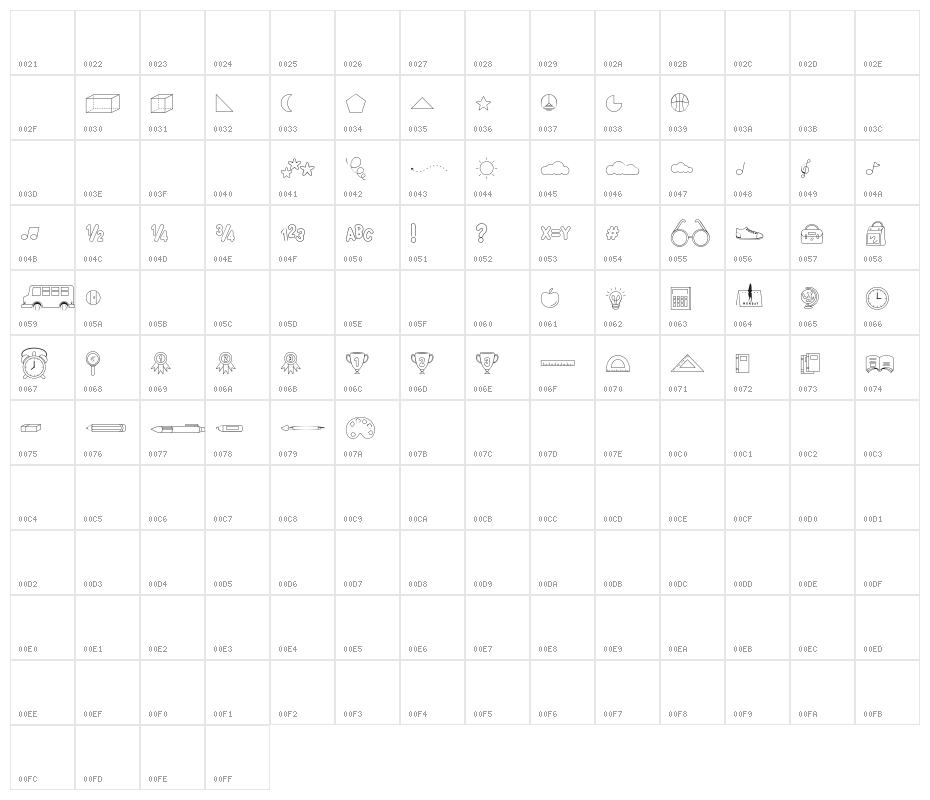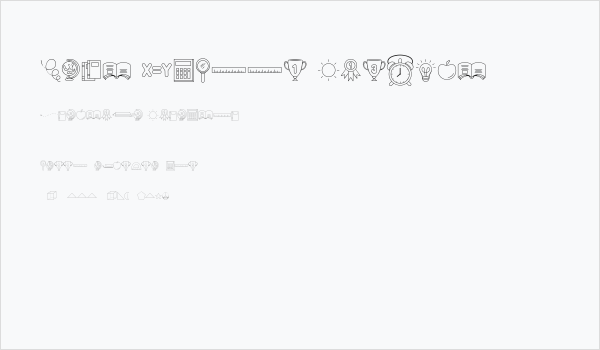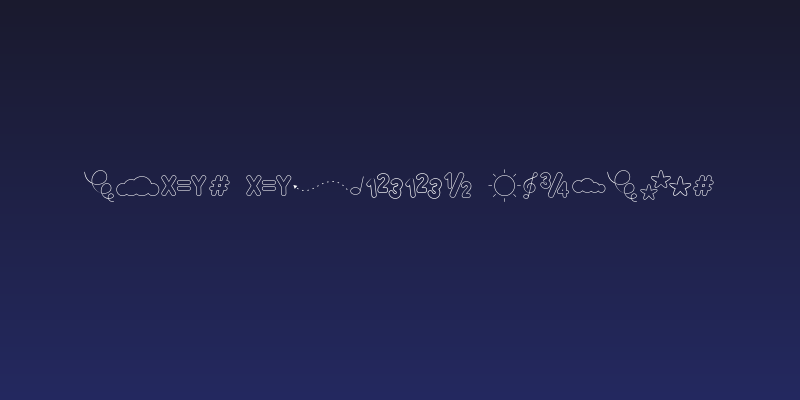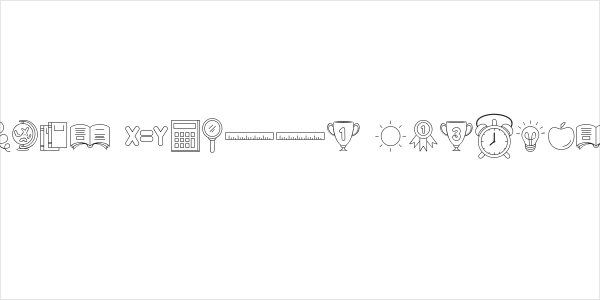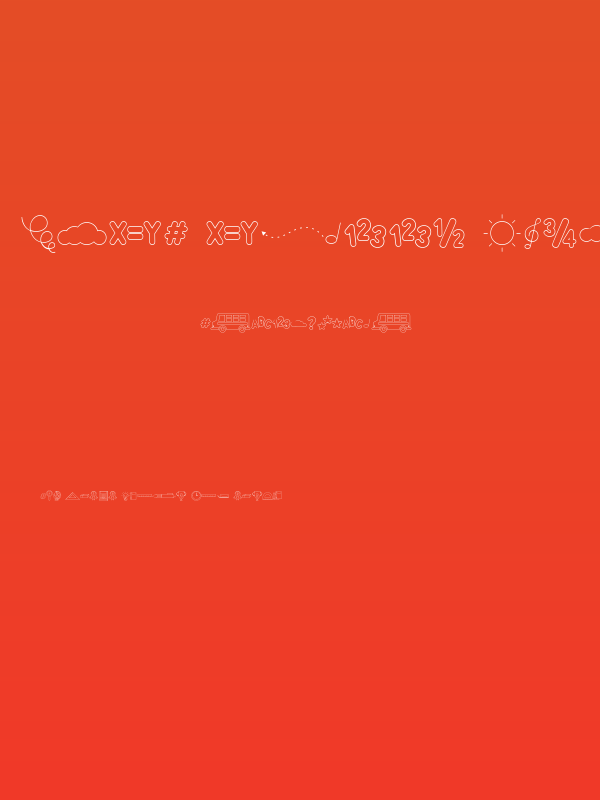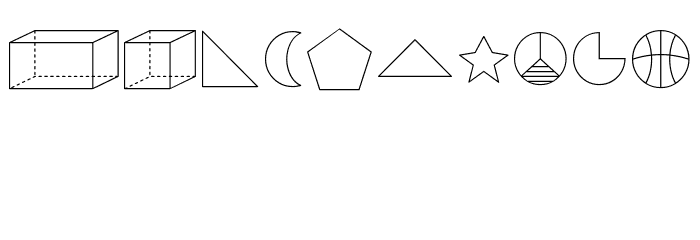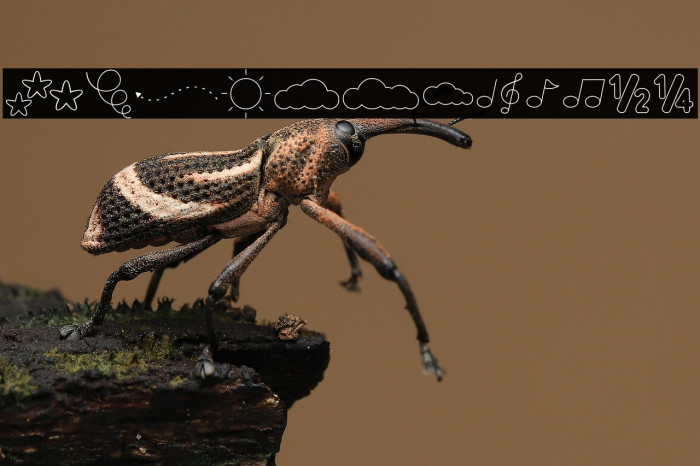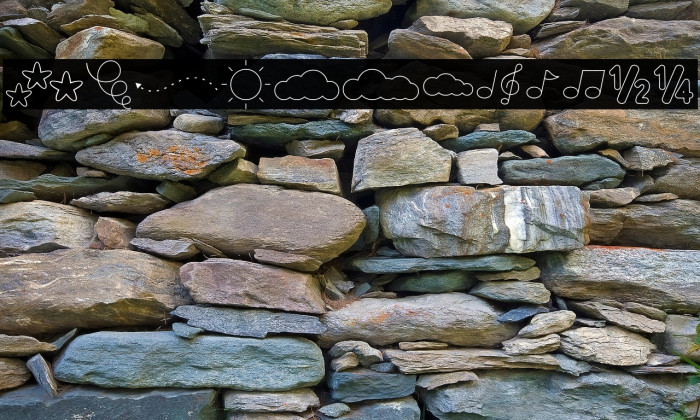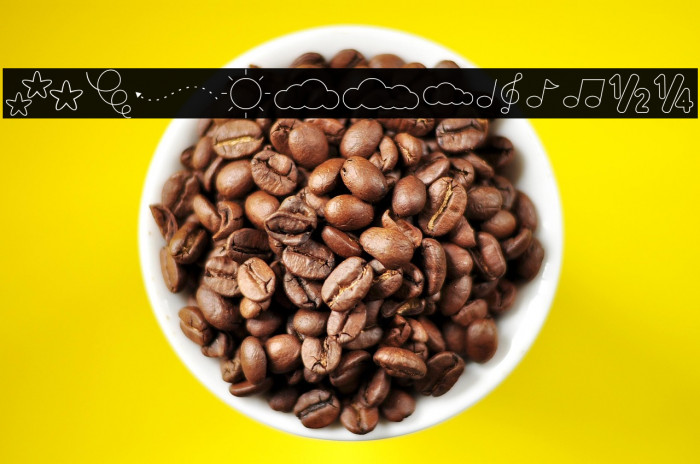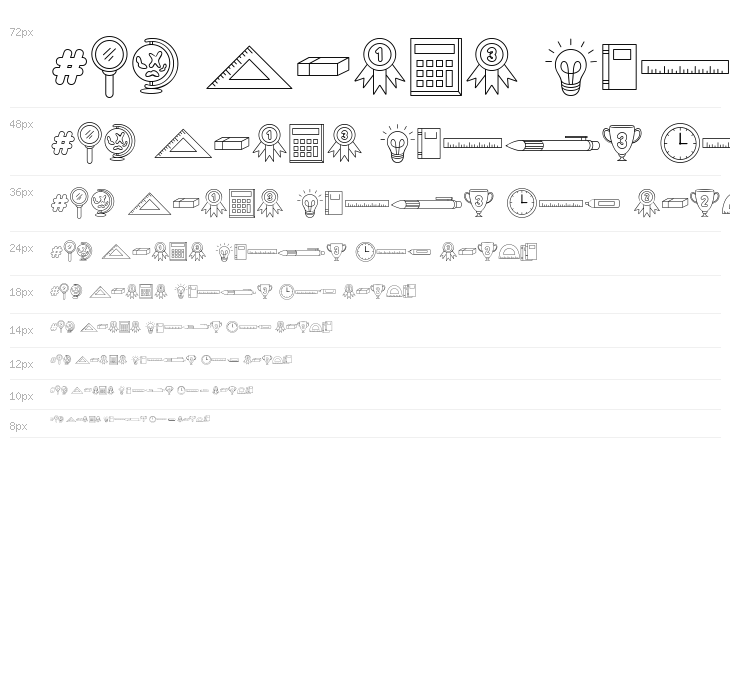
Best School Dingbat Font
This collection features a playful and educational set of dingbats, perfect for school-related projects. The icons include whimsical representations of stars, clouds, musical notes, fractions, and various school supplies like glasses, shoes, a briefcase, and a school bus. Additional symbols include apples, calculators, calendars, clocks, trophies, and geometric shapes. The style is clean and outlined, making it versatile for both digital and print media. The icons are designed to be easily recognizable and convey a sense of fun and learning, ideal for educational materials, children's books, or school event promotions.
| Overall Style | Playful, Educational |
| Use Case | Decorative elements, Educational materials |
| Proposed Projects | Ideal for educational materials, children's books, school event promotions, and classroom decorations. |